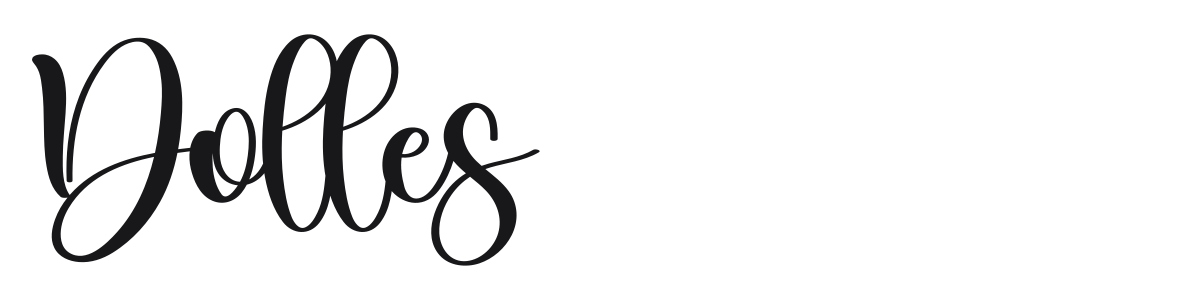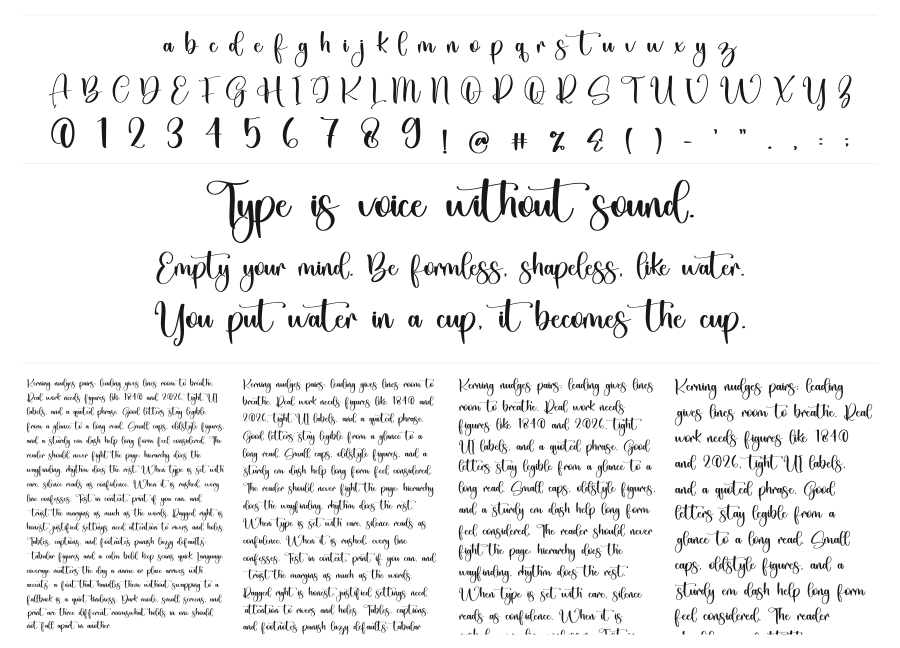
Dolles
Dolles is a contemporary casual script with flowing connected strokes and a natural hand-lettered bounce. The moderate stroke contrast between thick downstrokes and thin hairlines gives it a calligraphic quality without feeling stiff or formal. It sits comfortably in the space between wedding elegance and everyday warmth.